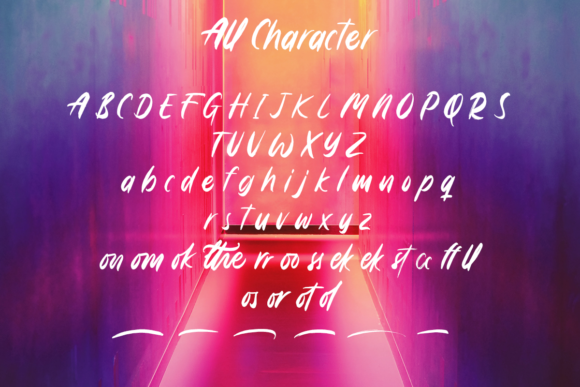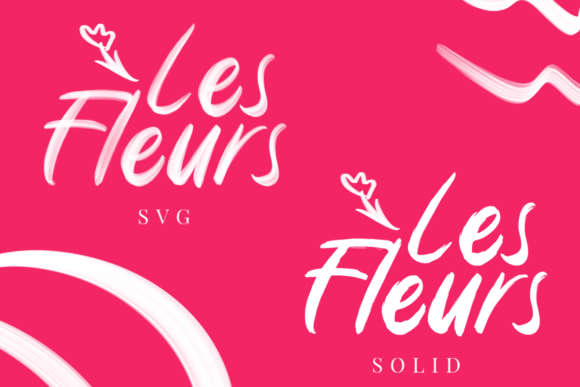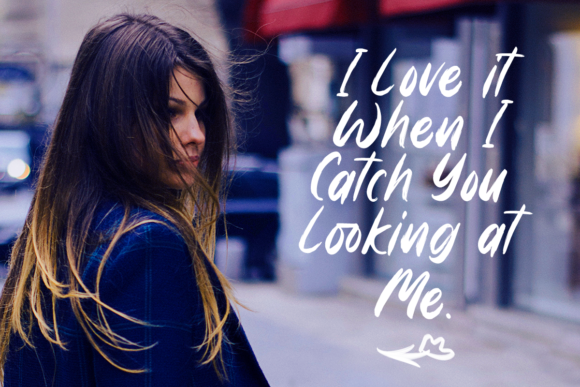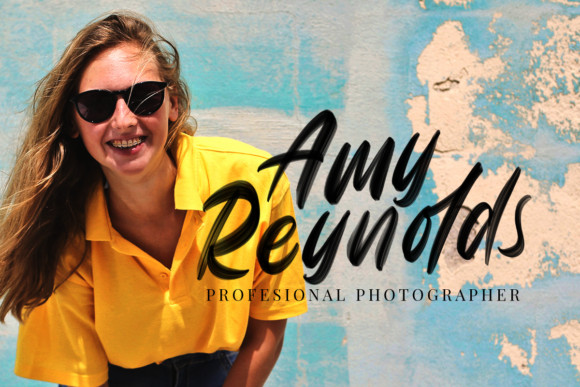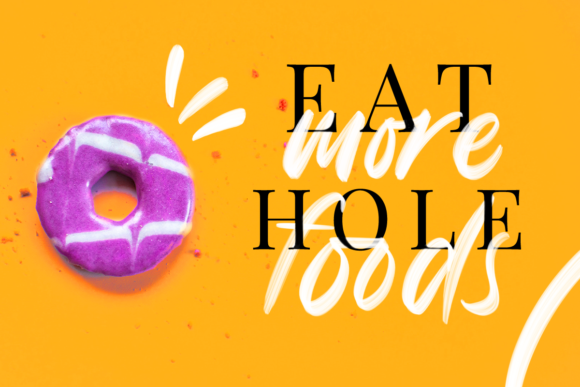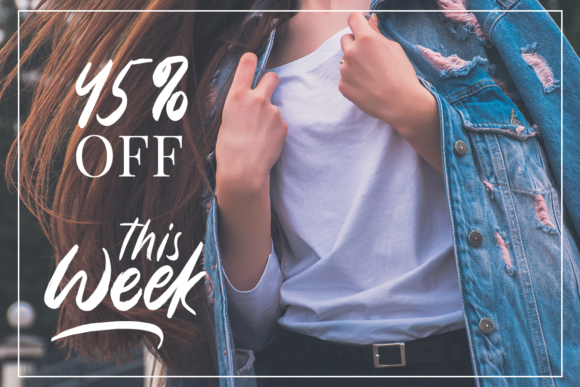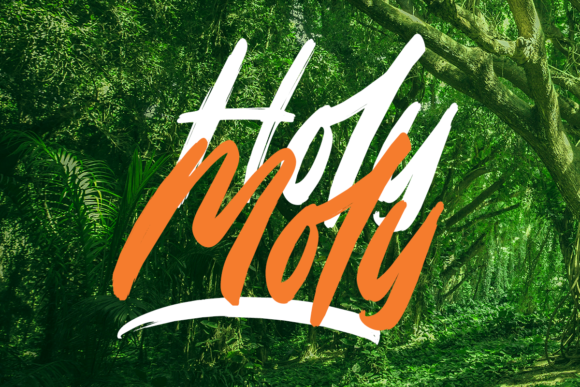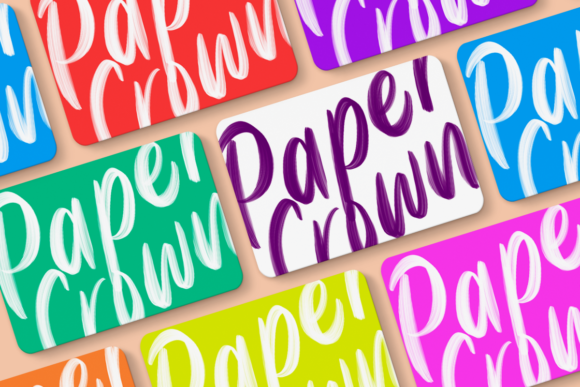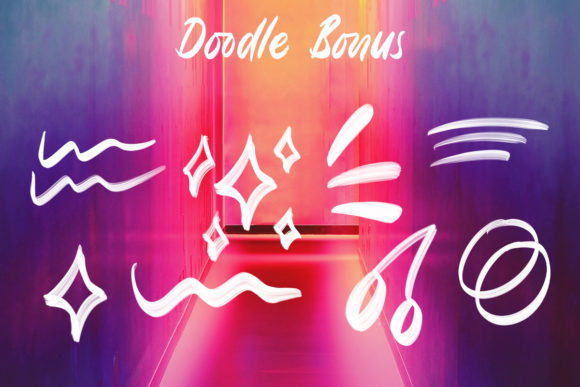
Romain Font
About Romain Font
Romain is a gorgeously light and playfully romantic handwritten font that radiates live. Get inspired by its unique charm, and turn any design idea into a true standout! It also comes in a colorful